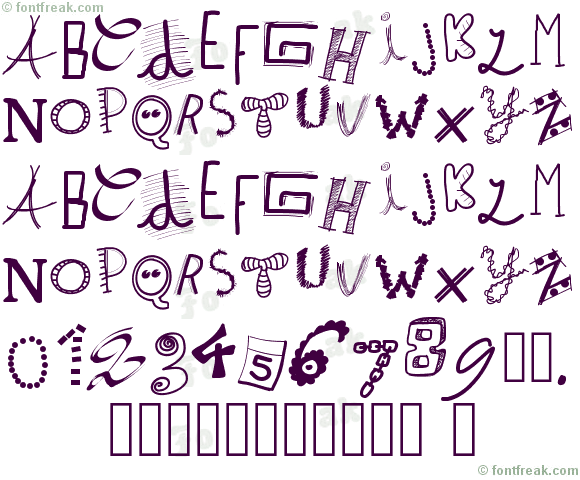
PWPatchwrks
About PWPatchwrks
PWPatchwrks by Peax Webdesign is a unique display font that combines playful elements with a creative flair, making it perfect for a variety of design projects. Characterized by its whimsical and handcrafted aesthetic, this font features a mix of irregular strokes and varied weights, giving it a charming, dynamic appearance. The characters exhibit distinct decorative elements, including quirky twists and turns that evoke a sense of creativity and individuality. The overall spacing is thoughtfully designed to maintain readability while enhancing its artistic appeal.
Ideal for use in wedding invitations, PWPatchwrks adds a personal touch that resonates with couples seeking a unique style for their special day. Its playful nature makes it suitable for children's book covers, where the font can capture the imagination of young readers. Additionally, it works wonderfully for restaurant menus, particularly those aiming for a casual or eclectic atmosphere, helping to create a memorable dining experience. Graphic designers will also find PWPatchwrks to be an excellent choice for branding projects, where a distinctive voice is essential. Content creators can use this font in social media graphics, ensuring their posts stand out in the crowded digital landscape.
What sets PWPatchwrks apart is its ability to blend creativity with functionality, making it not only visually appealing but also versatile for diverse design needs. For those seeking a distinctive typeface, the PWPatchwrks font free download offers an exciting opportunity to elevate any creative project.